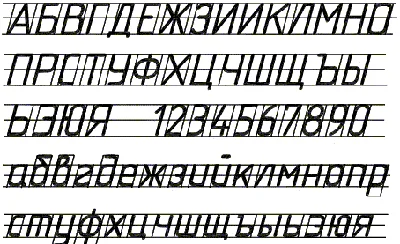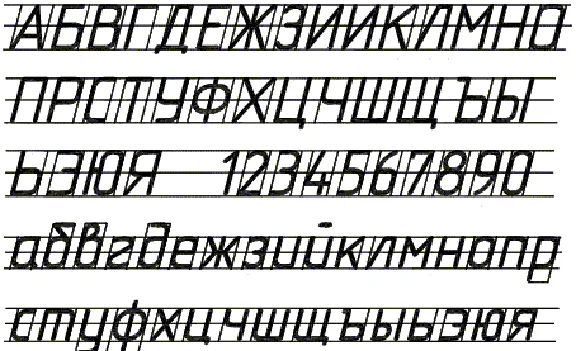
The need to use a standard font gostirovannogo occurs when placing explanatory notes of projects and dissertations. This is especially true for the engineering disciplines. In addition, the font will be useful in completing the standard framework - you do not have to sign the drawings manually. If you have terrible handwriting, you do not own the drawing hand, you want to save time - you just need this set of fonts. Probably, the Internet can find similar fonts, but you will spend on search time (and money) than we have.
В комплекте 4 шрифта, *.ttf - формат шрифтов. Вы получите zip-архив, в котором будет четыре файла. Шрифты соответствуют ГОСТ(у) тип А и В (прямой и наклонный). Архив не имеет пароля. Шрифт можно использовать в любом текстовом редакторе (Word и подобные) предварительно подключив его.